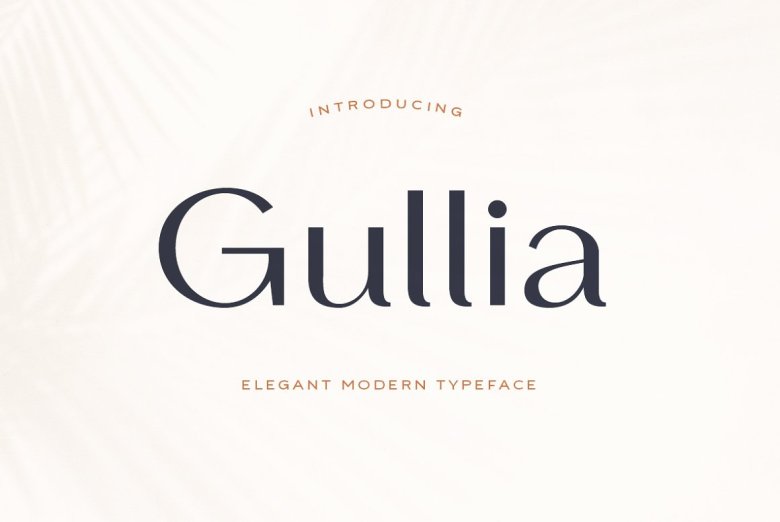
Gullia Font
Gullia is a stylish and modern sans serif font perfectly at home in fashion-related design projects. The elegant thin font is its unique advantage; it is great for branding and logo design while its legibility at low resolutions makes it perfect for application in websites, advertising copy, and other media feel Gullia brings a touch of pampered benevolence to all your designs.
This neat piece of typography was crafted with great precision for use everywhere in today’s fashion logos, websites, and marketing materials.
Gullia Sans Serif Font